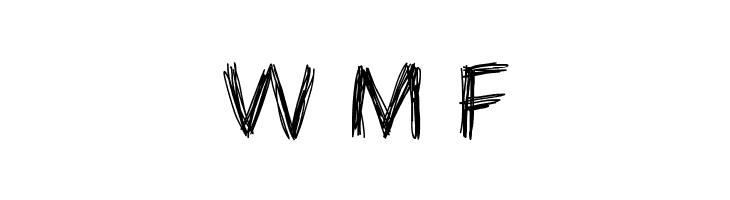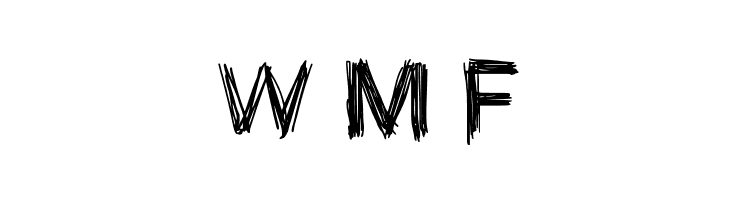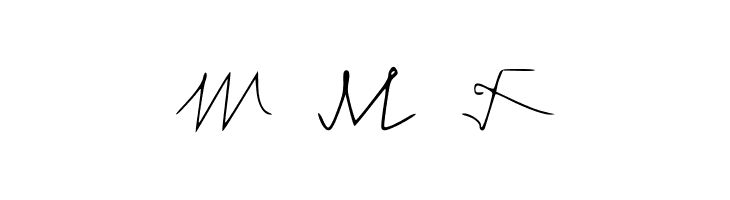
A bold, playful font with a hand-drawn aesthetic and high contrast.
A playful, casual handwritten font with uneven strokes and dynamic lines.
An artistic calligraphic font with dynamic strokes and expressive curves.
An abstract, artistic font with fluid, hand-drawn characters.
A classic serif font with elegant strokes and balanced structure.
A bold, brush-style font with dynamic and expressive strokes.
A lively and playful handwritten font with fluid, connected strokes.
A playful, bold handwritten font with thick, uneven strokes and a whimsical touch.
A bold, geometric font with a modern and structured design.
A sketch-like, hand-drawn font with dynamic, jagged strokes.
An elegant, decorative font with intricate swirls and curls.
A bold, expressive font with a hand-drawn, dynamic style.
A bold, hand-drawn font with a rough, textured appearance resembling brush strokes.
A bold, hand-drawn font with a textured, scribble-like pattern.